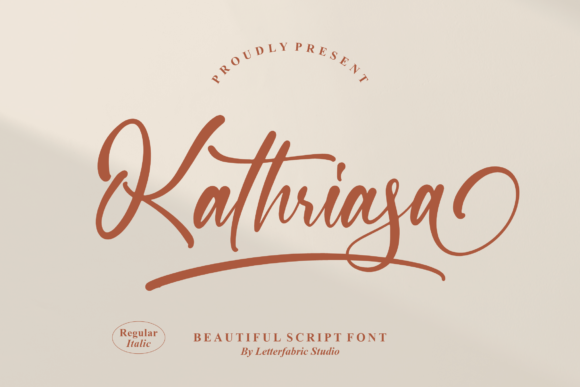
**Introducing Kathriasa: The Script Font That Will Elevate Your Designs**
Step into the enchanting world of Kathriasa, a free-flowing script font that will captivate your designs and mesmerize your audience. Its ethereal elegance and timeless charm will transform your creative projects into captivating works of art.
Crafted with meticulous care by Letterfabric, Kathriasa is the epitome of sophistication and style. Its graceful curves and delicate flourishes evoke a sense of luxury and refinement, making it the perfect choice for products, invitations, posters, and any other design that demands a touch of class.
As a script font, Kathriasa is renowned for its effortless flow and readability. Its characters dance across the page, creating a harmonious rhythm that guides the reader's eye effortlessly through your text. Whether you're crafting enchanting invitations or conveying important information, Kathriasa ensures your message will be received with clarity and grace.
But Kathriasa is more than just a beautiful font; it's a powerful tool that empowers you to express your creativity and connect with your audience on a deeper level. Its versatility knows no bounds, making it the perfect choice for a wide range of design projects.
Kathriasa's PUA encoding unlocks a world of possibilities. With ease, you can access a treasure trove of glyphs and swashes that will add an extra layer of intrigue and personalization to your designs. Unleash your imagination and explore endless creative possibilities that will set your work apart from the ordinary.
**Why Choose Kathriasa?**
* **Unleash Your Creativity:** Kathriasa empowers you to express your unique style and create designs that resonate with your audience.
* **Captivate Your Audience:** Its enchanting beauty and timeless elegance will draw attention and leave a lasting impression.
* **Effortless Readability:** The graceful flow of Kathriasa ensures your message is conveyed with clarity and ease.
* **Endless Versatility:** Suitable for a wide range of design projects, from elegant invitations to captivating posters.
* **PUA Encoded:** Access a treasure trove of glyphs and swashes to add a touch of personalization and intrigue to your designs.